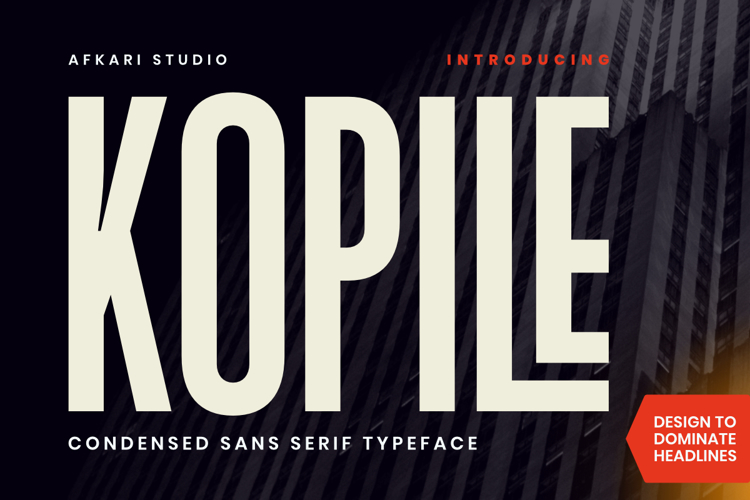
Kopile Cond Font
3 font family styles
Bold Condensed Style
Light Condensed Style
Condensed Style
Kopile - Condensed Sans Serif Typeface
Kopile is a modern condensed sans serif typeface designed for creators who need strong visual impact, clean readability, and versatile typography in one professional font family. Built with a sleek condensed structure and balanced geometric proportions, Kopile delivers a modern aesthetic that works perfectly across branding, editorial, advertising, and digital design projects.